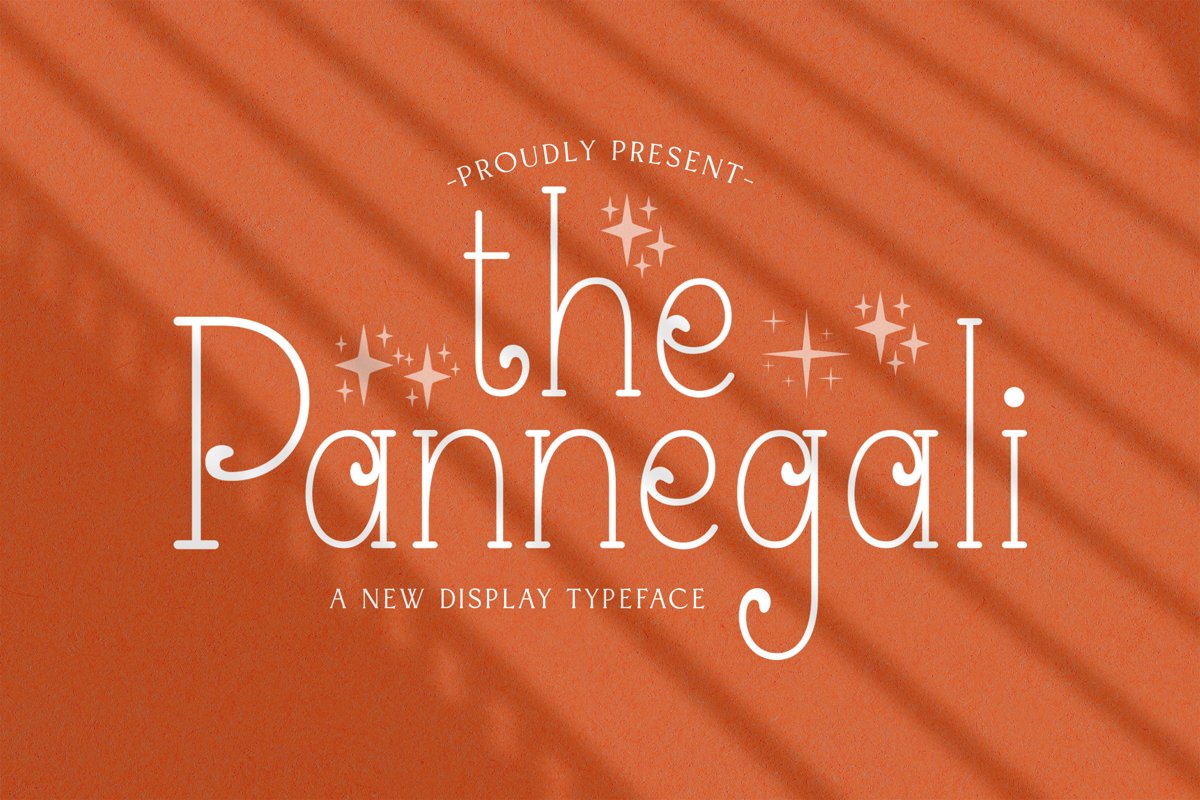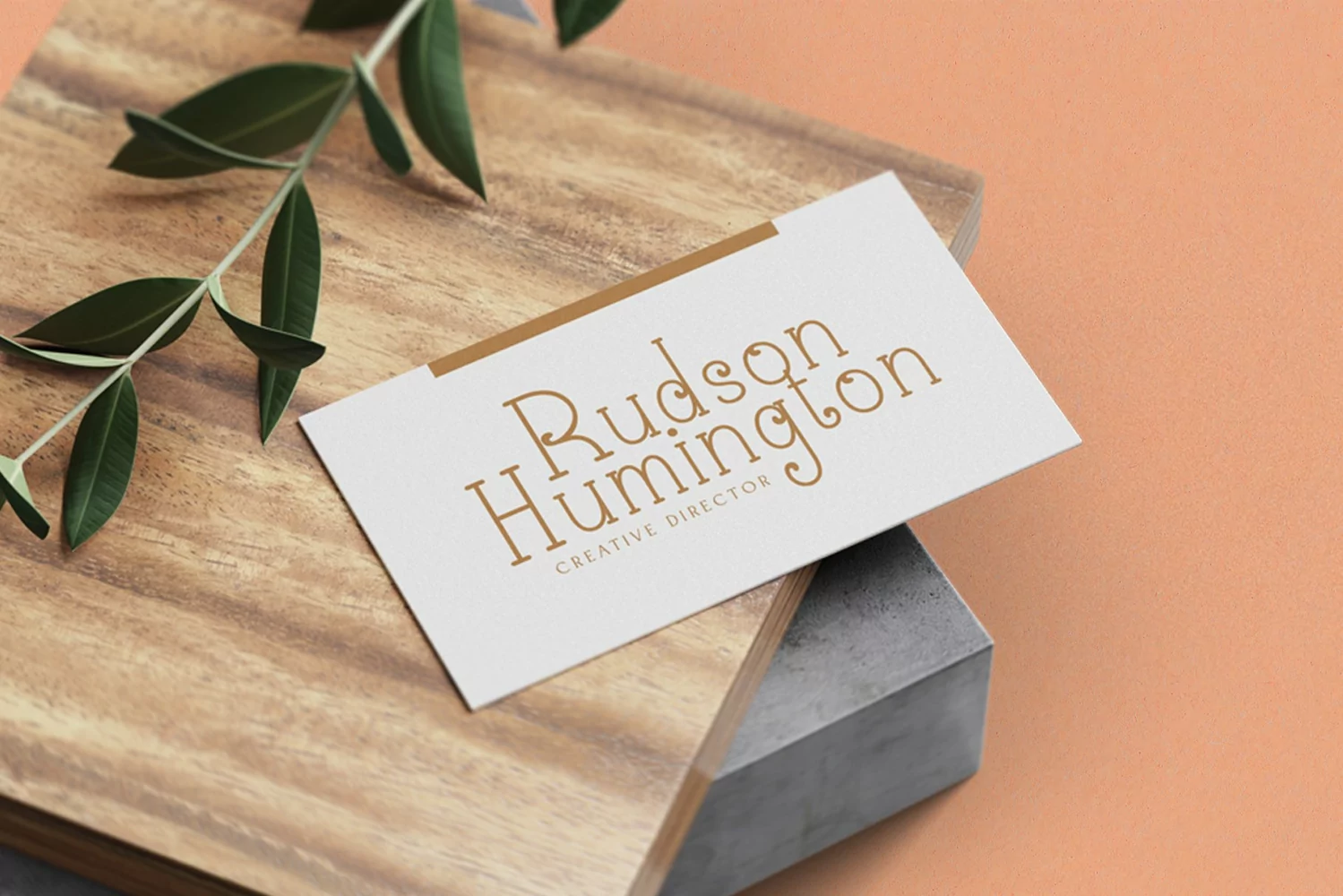
Pannegali is a curly display typeface. Perfect for display, quotes, mockup, poster, business card, branding, logo, logotype, crafting needs, wedding needs, print, t-shirt, merchandise, packaging and many more.